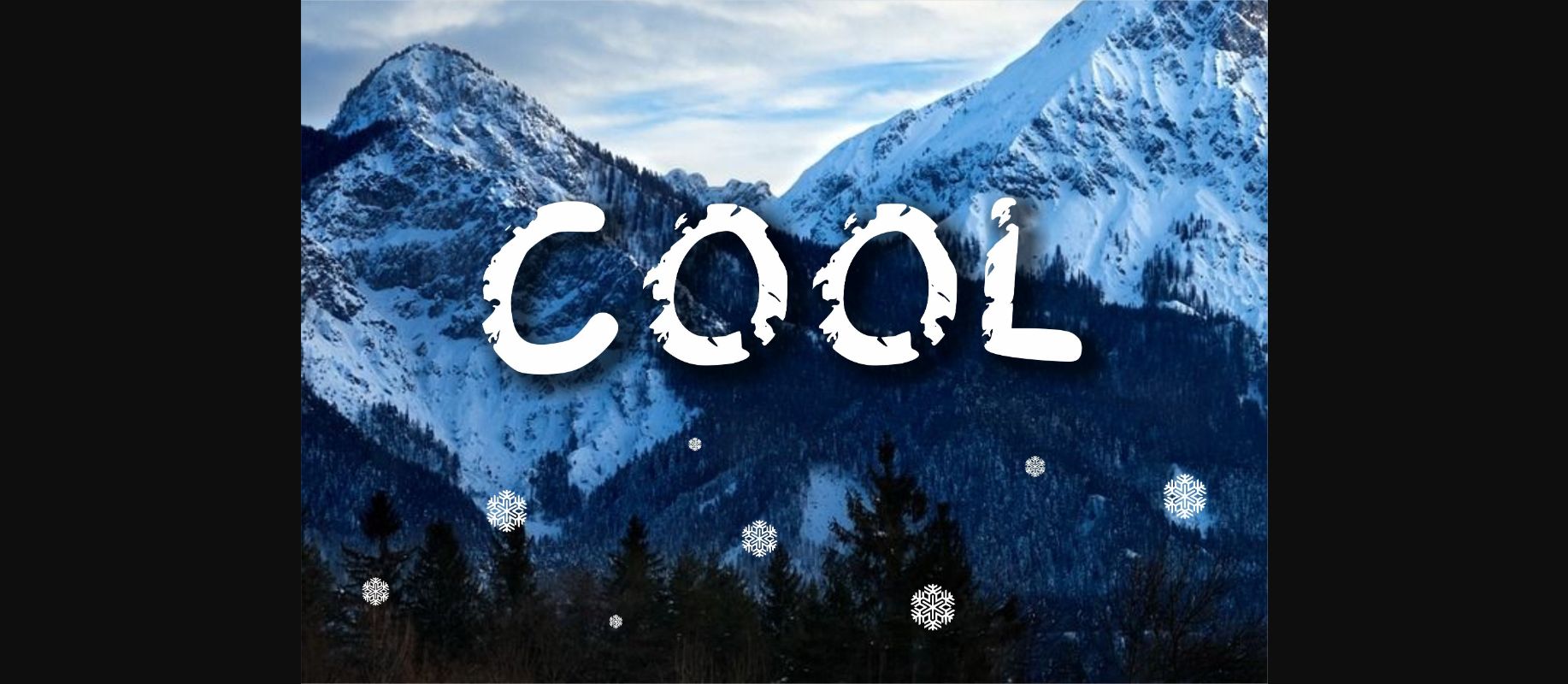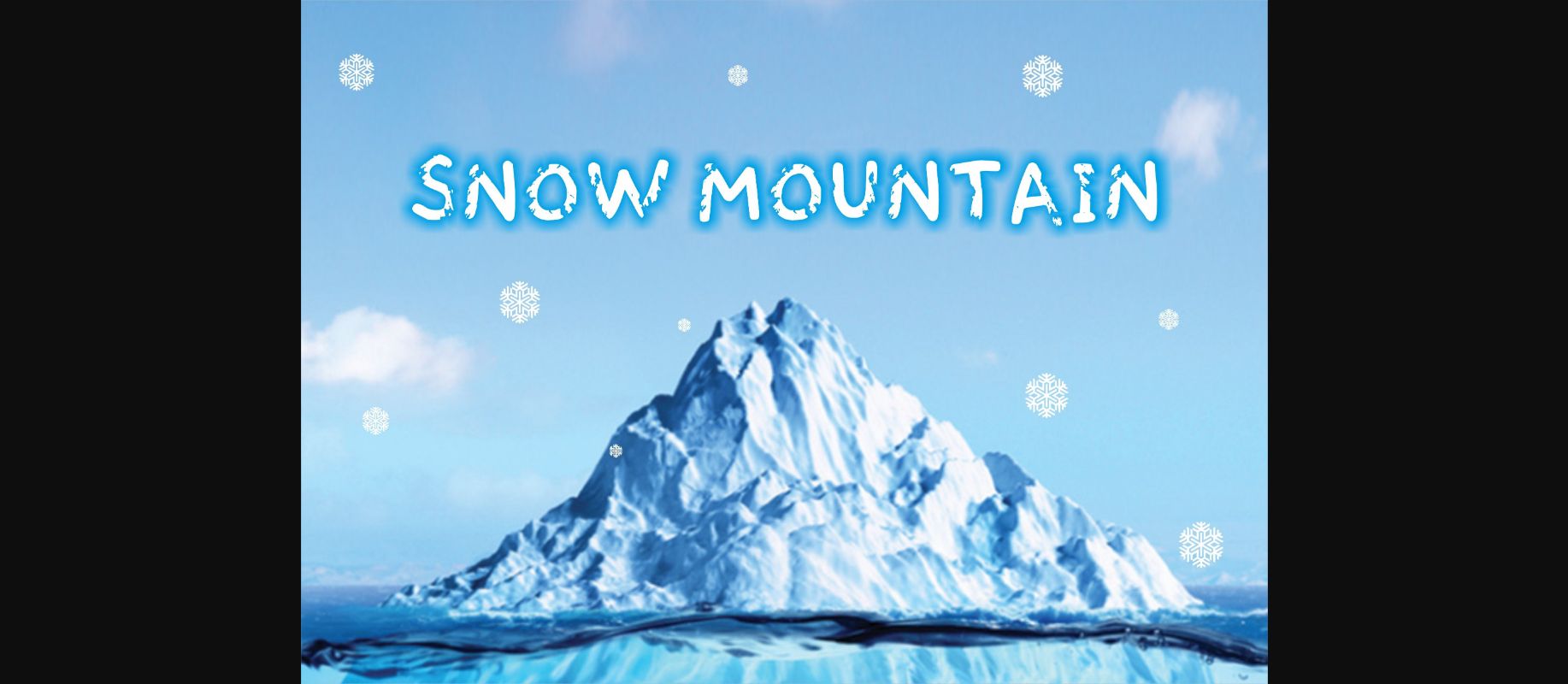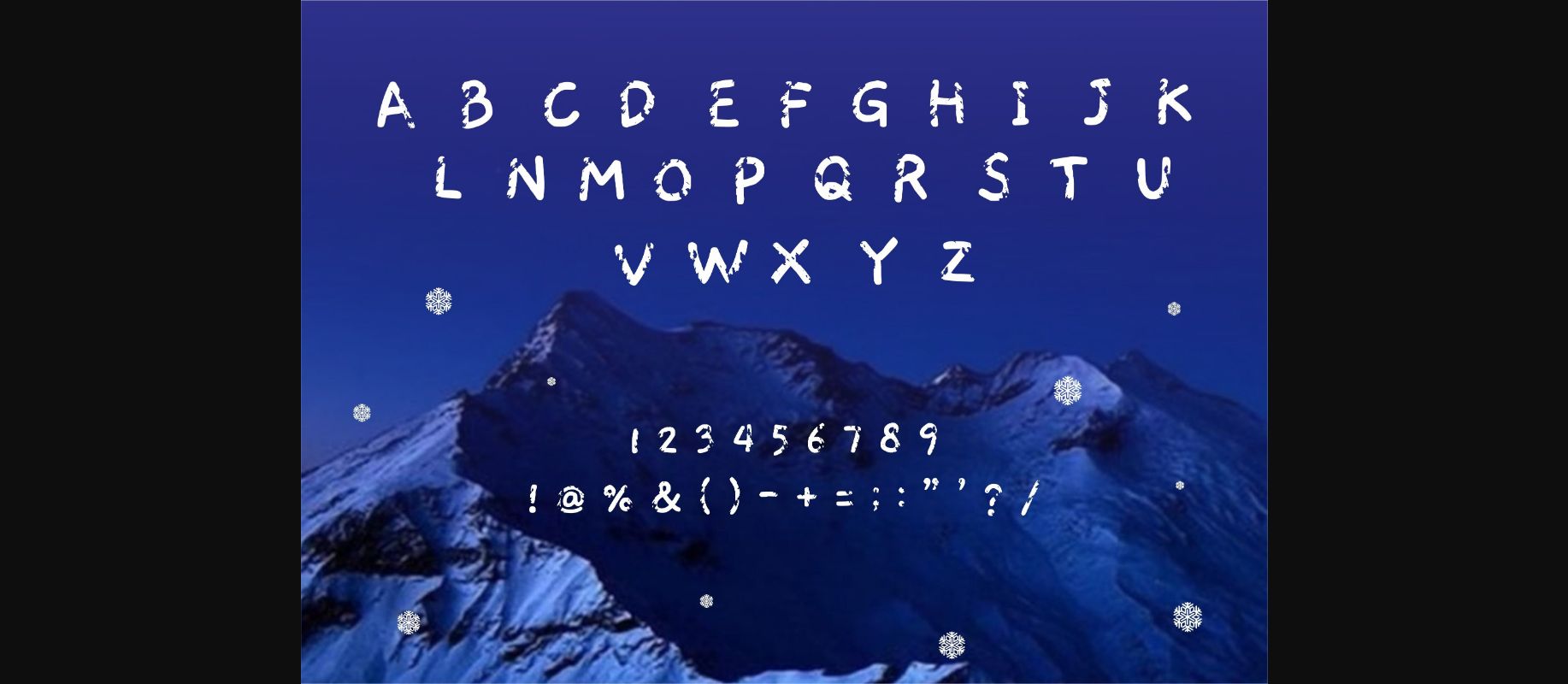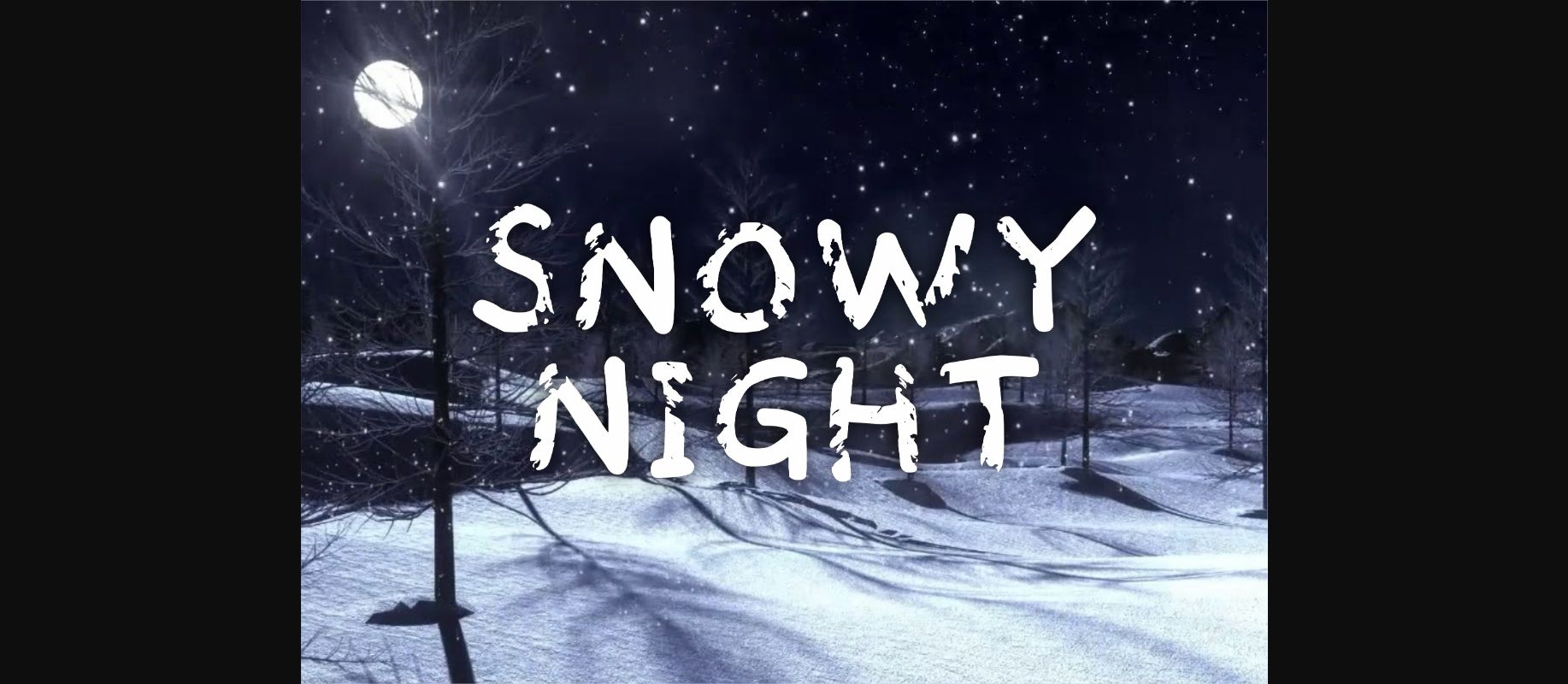
Cool is a cool, simple, and brushed decorative font, resembling snow on each character. No matter the topic, this font will be a very big asset to your font library